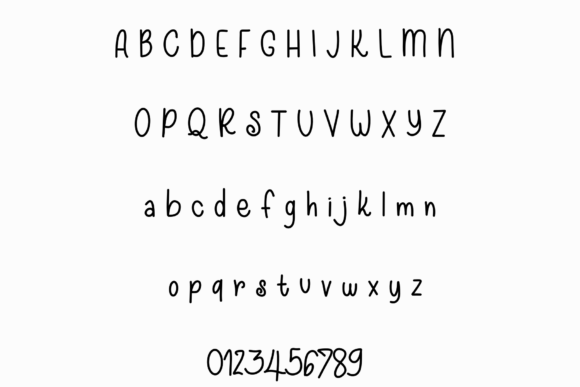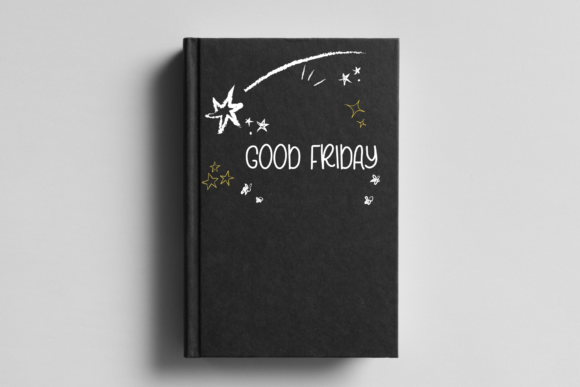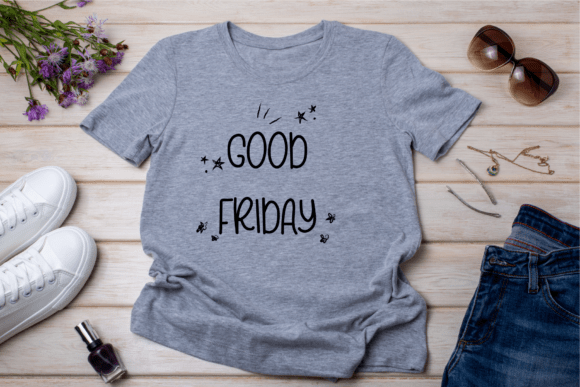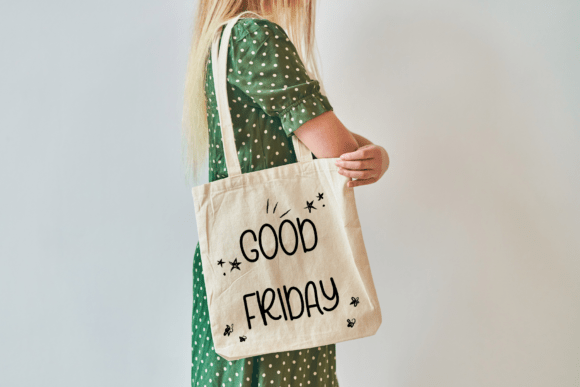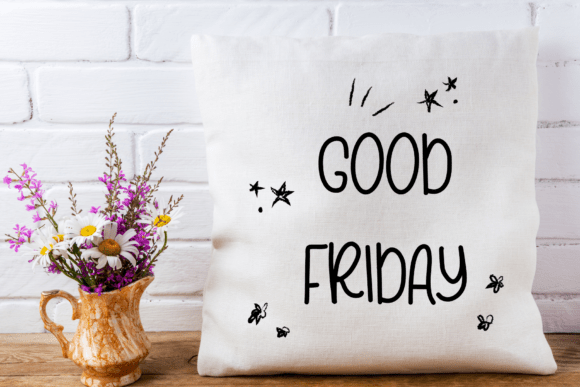
Introducing Good Friday Font: A Sweet and Friendly Script Font for All Your Creative Needs
Are you a designer, crafter, or DIY enthusiast looking for a beautiful and versatile font to elevate your creative projects? Look no further than Good Friday Font, a sweet and friendly script font that’s perfect for a wide range of applications. In this article, we’ll explore the features and benefits of Good Friday Font, and show you can use it to add a personal touch to your designs.
What is Good Friday Font?
Good Friday Font is a carefully crafted script font that’s designed to be both elegant and approachable. Its flowing lines and gentle curves make it perfect for creating beautiful handwritten-style text that’s sure to capture the hearts of your audience. Whether you’re looking to add a personal touch to your notes, diaries, or greeting cards, Good Friday Font is the perfect choice.
What Can I Use Good Friday Font For?
One of the best things about Good Friday Font is its versatility. While it’s perfect for taking notes, writing a diary, or making greeting cards, you can also use it for a wide range of other design projects, including:
- Banners: Create eye-catching banners for your website, social media, or marketing materials using Good Friday Font.
- Content: Add a personal touch to your blog posts, articles, or website content with this beautiful script font.
- Mugs: Design personalized mugs for special occasions or everyday use with Good Friday Font.
- Cards: Create beautiful greeting cards for birthdays, holidays, or special occasions.
- Shirts: Design custom t-shirts, hoodies, or other apparel with Good Friday Font.
- Stationery: Add a touch of elegance to your stationery, including notebooks, journals, or letterheads.
- Social Media Posts: Use Good Friday Font to create eye-catching social media posts that stand out from the crowd.
Why Choose Good Friday Font?
So why choose Good Friday Font over other script fonts? Here are just a few reasons why designers and crafters love this font:
- Unique and Elegant: Good Friday Font has a unique and elegant style that’s sure to capture the attention of your audience.
- Easy to Read: Despite its elegant style, Good Friday Font is easy to read, making it perfect for body text or longer passages.
- Versatile: As we’ve seen, Good Friday Font can be used for a wide range of design projects, from notes and diaries to banners and social media posts.
- Personal Touch: Good Friday Font adds a personal touch to your designs, making them feel more handmade and special.
Tips for Using Good Friday Font
Here are a few tips for getting the most out of Good Friday Font:
- Experiment with Sizes: Good Friday Font looks great in a variety of sizes, from small and delicate to large and bold.
- Pair with Other Fonts: Try pairing Good Friday Font with other fonts to create a unique and eye-catching combination.
- Use for Headings and Titles: Good Friday Font is perfect for headings and titles, adding a touch of elegance to your designs.
- Add Decorations: Consider adding decorations, such as flourishes or swashes, to give your designs an extra special touch.
In conclusion, Good Friday Font is a sweet and friendly script font that’s perfect for designers, crafters, and DIY enthusiasts. Its versatility, elegance, and ease of use make it a great choice for a wide range of design projects, from notes and diaries to banners and social media posts. Whether you’re looking to add a personal touch to your designs or simply want a beautiful font to elevate your creative projects, Good Friday Font is a great choice.